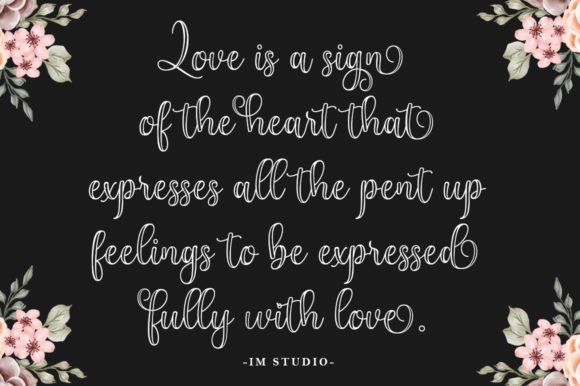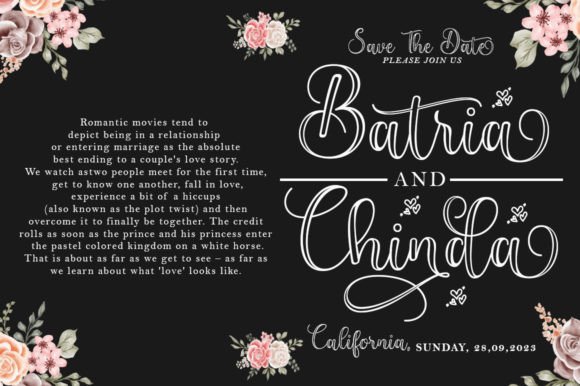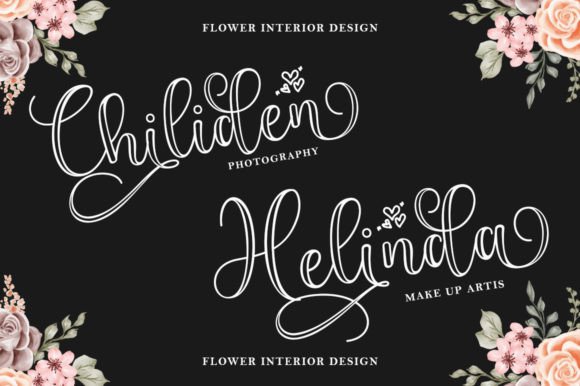
About Arbetia
Arbetia is a dazzling script font. This font is neatly crafted and very detailed. Whatever the topic, this font will be a great asset to your font library, as it has the potential to enhance any creation.